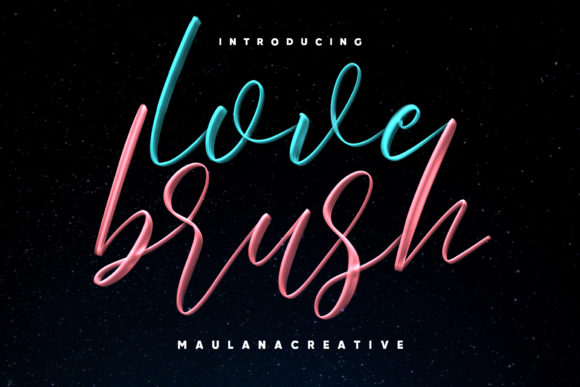
Love Brush Font: The Ultimate Guide to a Romantic and Bold Handwritten Font
Are you looking for a font that can add a touch of romance and uniqueness to your design projects? Look no further than the Love Brush Font. This stunning and bold handwritten font is designed to bring a spark to any design, and in this article, we’ll explore its features, benefits, and uses.
What Makes Love Brush Font So Special?
Love Brush Font is a handwritten font with a romantic twist. Its bold and expressive strokes make it perfect for designs that require a personal touch. Here are some of its key features:
- Unique and Handwritten: Love Brush Font is a one-of-a-kind, handwritten font that is designed to bring a personal touch to your designs.
- Bold and Expressive: The font features bold and expressive strokes that make it perfect for headlines, titles, and other design elements.
- Romantic Twist: The font has a romantic twist that makes it ideal for designs related to love, beauty, and relationships.
- Easy to Read: Despite its bold strokes, Love Brush Font is easy to read, making it perfect for body text and other written content.
The Benefits of Using Love Brush Font
Using Love Brush Font in your design projects can have numerous benefits. Here are some of the advantages of using this stunning font:
- Stand Out from the Crowd: With Love Brush Font, you can create designs that stand out from the crowd and grab attention.
- Add a Personal Touch: The font’s handwritten nature adds a personal touch to your designs, making them more relatable and engaging.
- Perfect for Romantic Designs: The font’s romantic twist makes it perfect for designs related to love, beauty, and relationships.
- Versatile: Love Brush Font can be used in a variety of design projects, from wedding invitations to social media graphics.
The Many Uses of Love Brush Font
Love Brush Font is a versatile font that can be used in a variety of design projects. Here are some of the many uses of this stunning font:
- Wedding Invitations: The font’s romantic twist makes it perfect for wedding invitations, save-the-date cards, and other wedding-related designs.
- Social Media Graphics: Love Brush Font can be used to create stunning social media graphics, including Facebook posts, Instagram stories, and Twitter headers.
- Branding and Packaging: The font can be used in branding and packaging designs to add a personal touch and create a unique identity.
- Advertising and Marketing: Love Brush Font can be used in advertising and marketing materials, such as brochures, flyers, and posters.
Tips and Tricks for Using Love Brush Font
Here are some tips and tricks for using Love Brush Font in your design projects:
- Use it Sparingly: While Love Brush Font is a stunning font, it can be overwhelming if used excessively. Use it sparingly to create a balanced design.
- Pair it with Other Fonts: Love Brush Font can be paired with other fonts to create a unique and interesting design.
- Experiment with Colors: The font looks great in a variety of colors, so experiment with different colors to find the one that works best for your design.
- Pay Attention to Kerning: As with any font, pay attention to kerning to ensure that the text is easy to read and visually appealing.
In conclusion, Love Brush Font is a stunning and bold handwritten font with a romantic twist. Its unique features, benefits, and uses make it a great addition to any design project. Whether you’re creating wedding invitations, social media graphics, or branding materials, Love Brush Font is sure to add a spark to your designs.